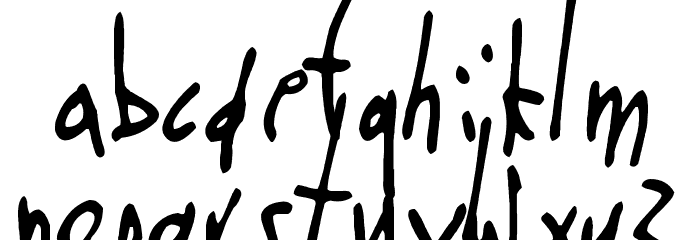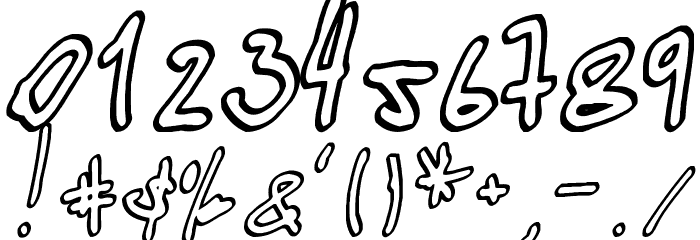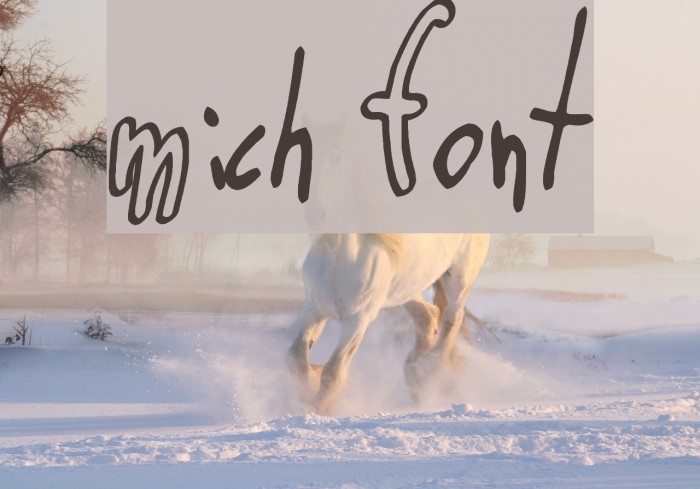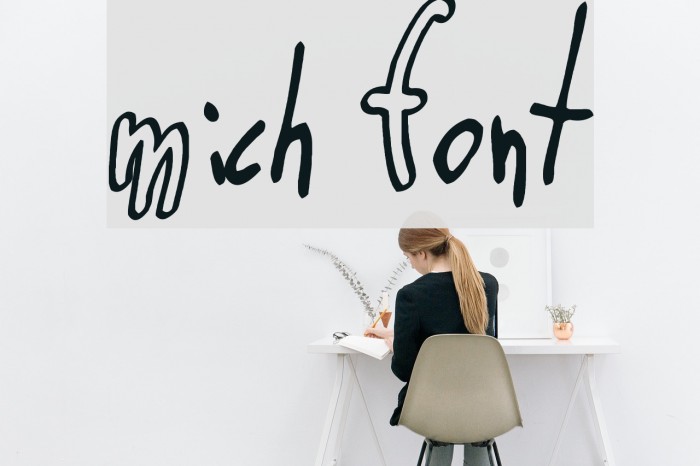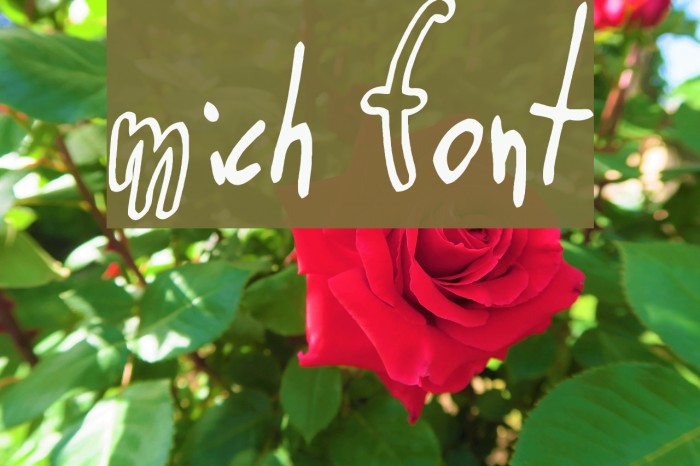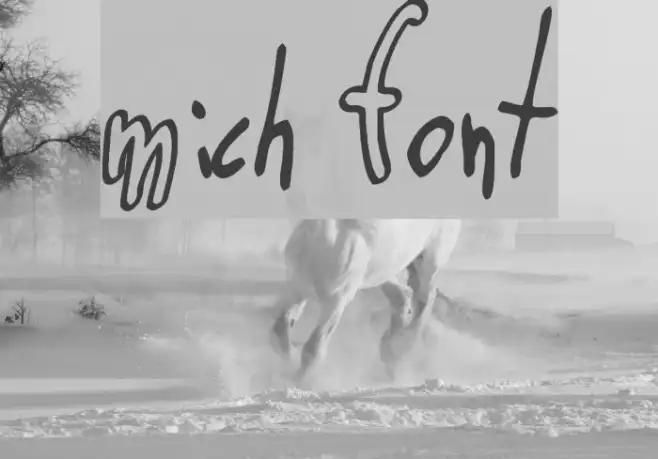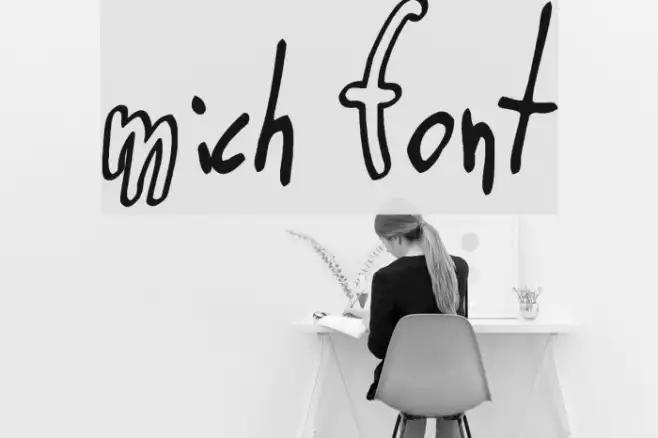
Mich Font
This font exudes a playful and casual handwritten style, characterized by its irregular and organic letterforms. The strokes are uneven, giving it a spontaneous and lively appearance. Each character has a unique personality, with varying heights and widths, contributing to its informal and approachable feel. The numbers and special characters maintain the same whimsical quality, ensuring consistency across the font. This style is reminiscent of a personal note or a creative sketch, making it ideal for projects that require a touch of individuality and warmth.
A playful, casual handwritten font with irregular, organic letterforms.
- Proposed Projects: Ideal for greeting cards, personal blogs, children's books, and creative branding projects.
- Category: Handwritten
- Overall Style: Casual, Playful
- Use Case: Headlines, Informal text, Creative projects